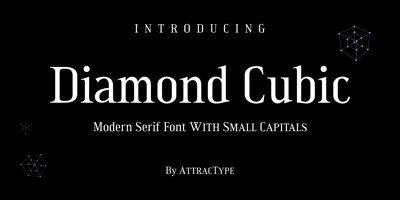
Diamond Cubic Font
Diamond Cubic Font is ideal for luxury jewelry store branding, precision diamond cutting company logos, high-end gemstone certification materials, crystal structure research publications, luxury goods packaging, and premium crystallography educational resources.
Diamond Cubic Font is exciting because it captures the brilliant precision and multifaceted beauty of diamond crystals, delivering a geometrically perfect typeface that embodies luxury, scientific precision, and the spectacular optical properties of the world's hardest natural substance.
The Diamond Cubic Font family includes crystalline variations: Diamond Cubic Light, Diamond Cubic Regular, Diamond Cubic Bold, faceted alternates, and decorative elements inspired by diamond crystal structures and prismatic light refraction patterns.
Sparkle with crystalline precision using Diamond Cubic Font, a brilliantly engineered typeface that brings diamond luxury and crystallographic perfection to your most prestigious design projects. This dazzling font excels in creating memorable branding for fine jewelry houses, gemological laboratories, luxury watch manufacturers, and scientific research institutions that work with crystalline materials and diamond technology applications. The precisely faceted letterforms feature geometric perfection and crystal-inspired details that communicate luxury, scientific accuracy, and optical brilliance while ensuring excellent readability across all luxury and scientific applications. Perfect for diamond certification documents, luxury brand communications, crystallography research materials, and high-end jewelry catalogs that need to convey exceptional quality and scientific precision, this font connects with discerning audiences who appreciate both luxury craftsmanship and scientific excellence. Each character refracts with diamond brilliance, making every luxury message feel like a perfectly cut gem that demonstrates uncompromising quality and technical mastery. Diamond Cubic Font transforms premium communications into brilliant statements that honor the intersection of luxury and science while establishing authority in markets where precision, rarity, and exceptional quality determine value and customer trust.